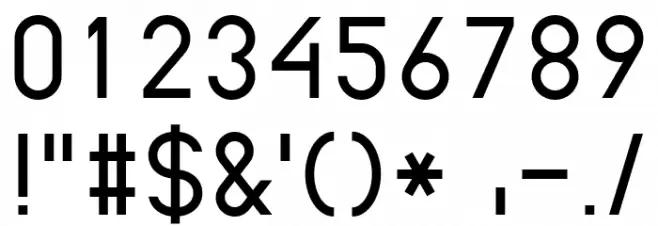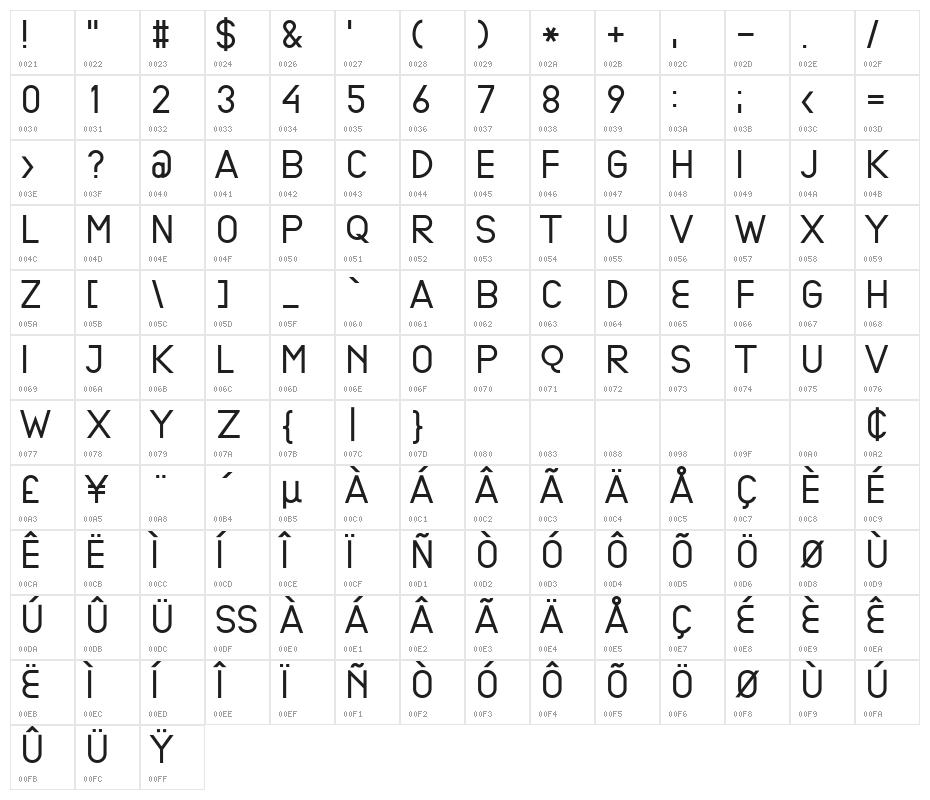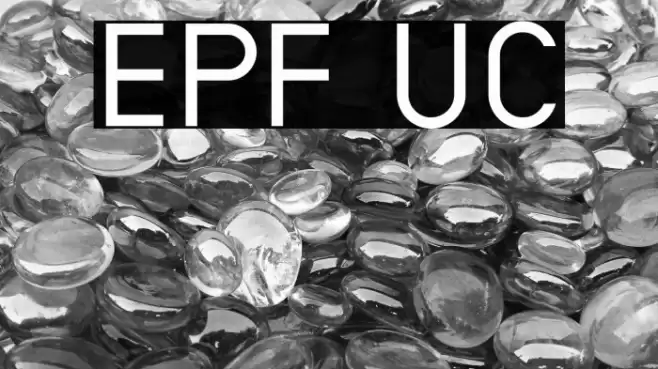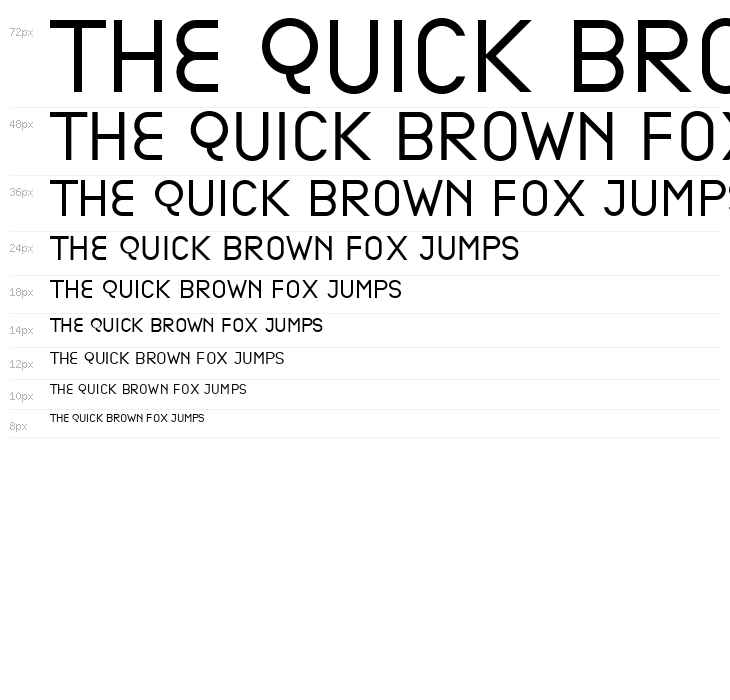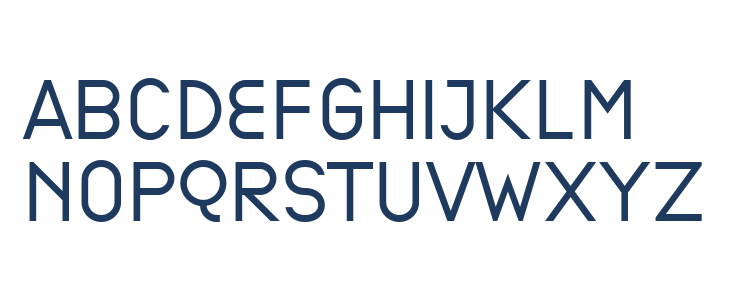
EPF UC Font
EPF UC Description
This font features a clean and modern sans-serif style with uniform stroke widths, giving it a sleek and contemporary appearance. The characters are well-proportioned, with a geometric influence that enhances readability and visual appeal. The uppercase and lowercase letters maintain a consistent design, while the numerals and special characters are crafted to complement the overall aesthetic. The font's simplicity and clarity make it versatile for various design applications.
| Proposed Projects | Ideal for branding, web design, advertising, and editorial layouts due to its clarity and modern appeal. |